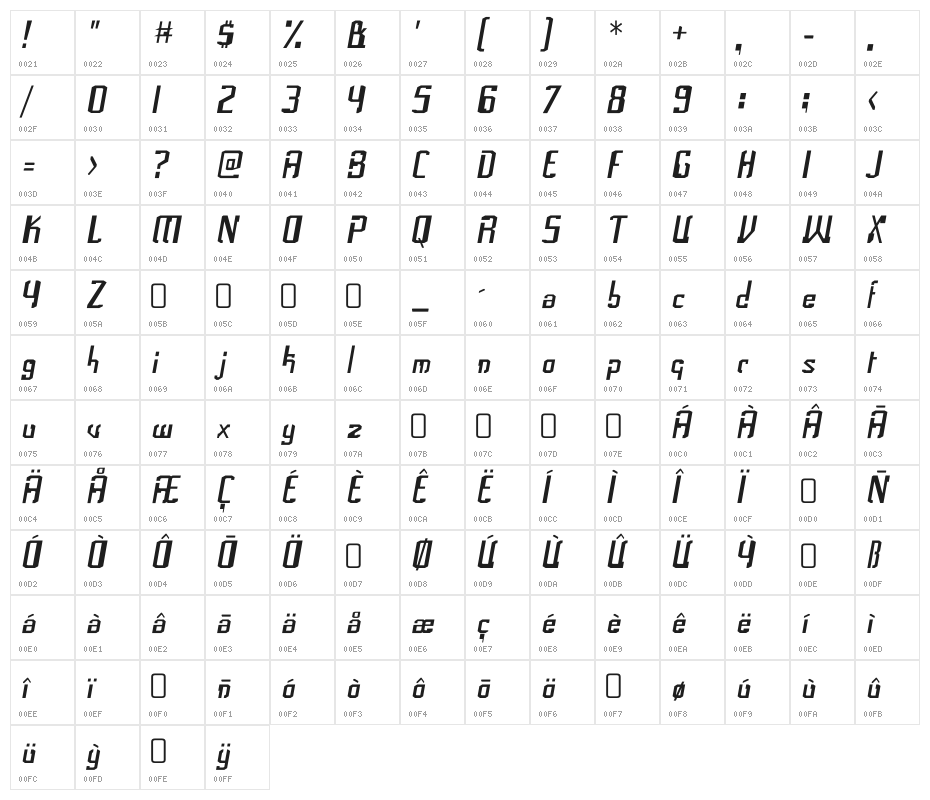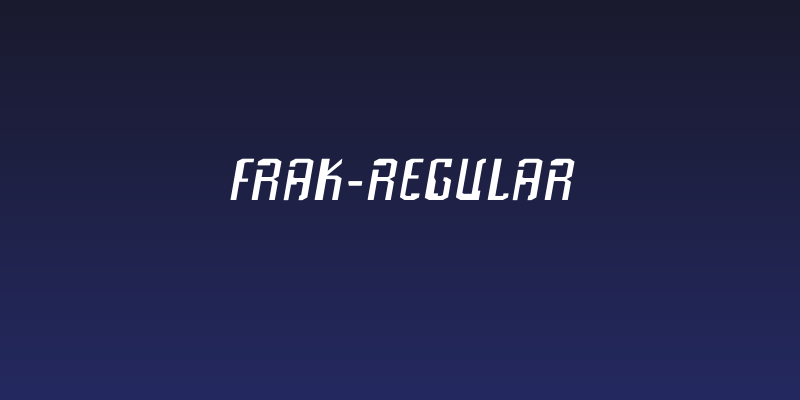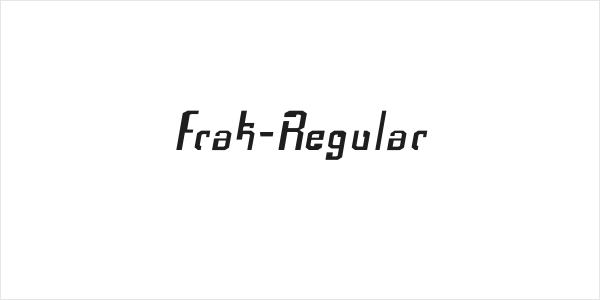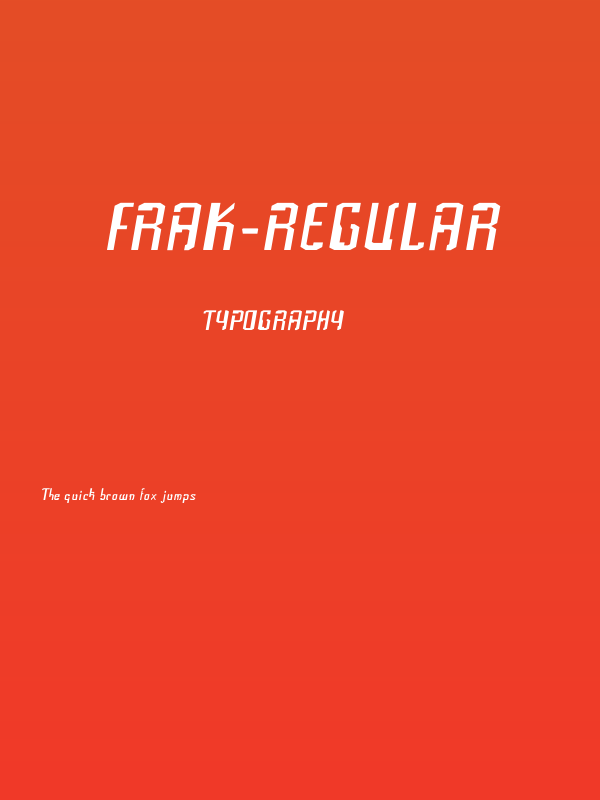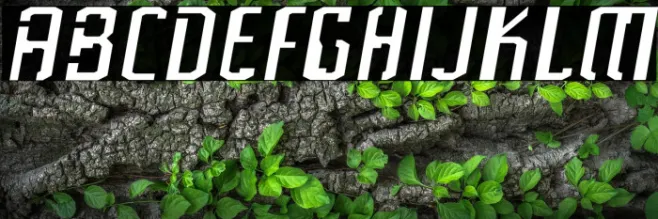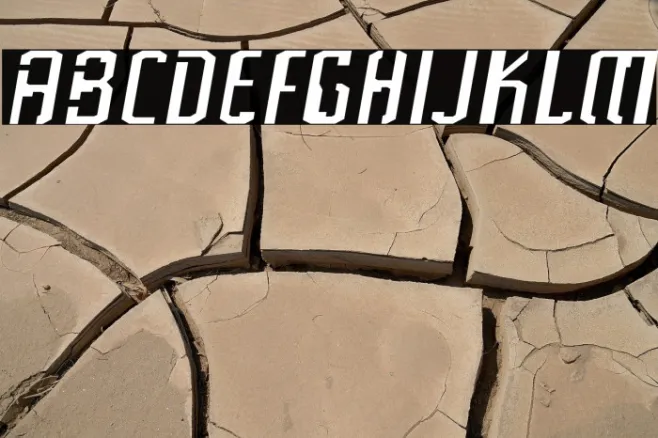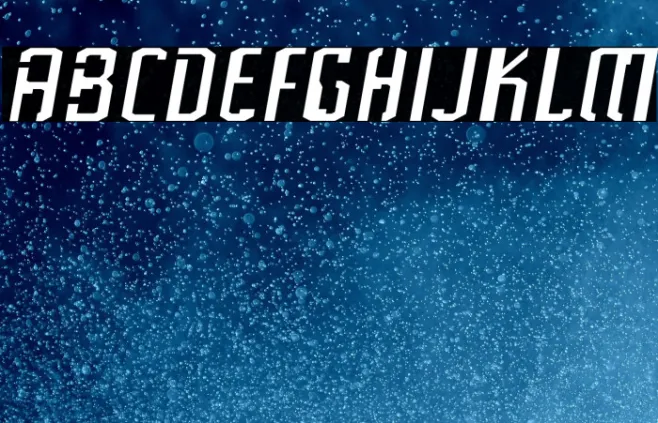
Frak-Regular Font
Frak-Regular Description
This font features a bold and angular design with a futuristic and dynamic appearance. The uppercase letters are sharply defined with geometric cuts, giving them a distinctive, edgy look. The lowercase letters maintain a similar style, with a slightly more fluid form that complements the uppercase. Numbers are robust and consistent with the overall angular theme. Special characters are designed to match the boldness and sharp angles of the alphabet, ensuring a cohesive look across all glyphs. This font is ideal for projects that require a modern and impactful visual style.
| Proposed Projects | Ideal for sci-fi themed designs, video game graphics, modern branding, and tech-related projects. |